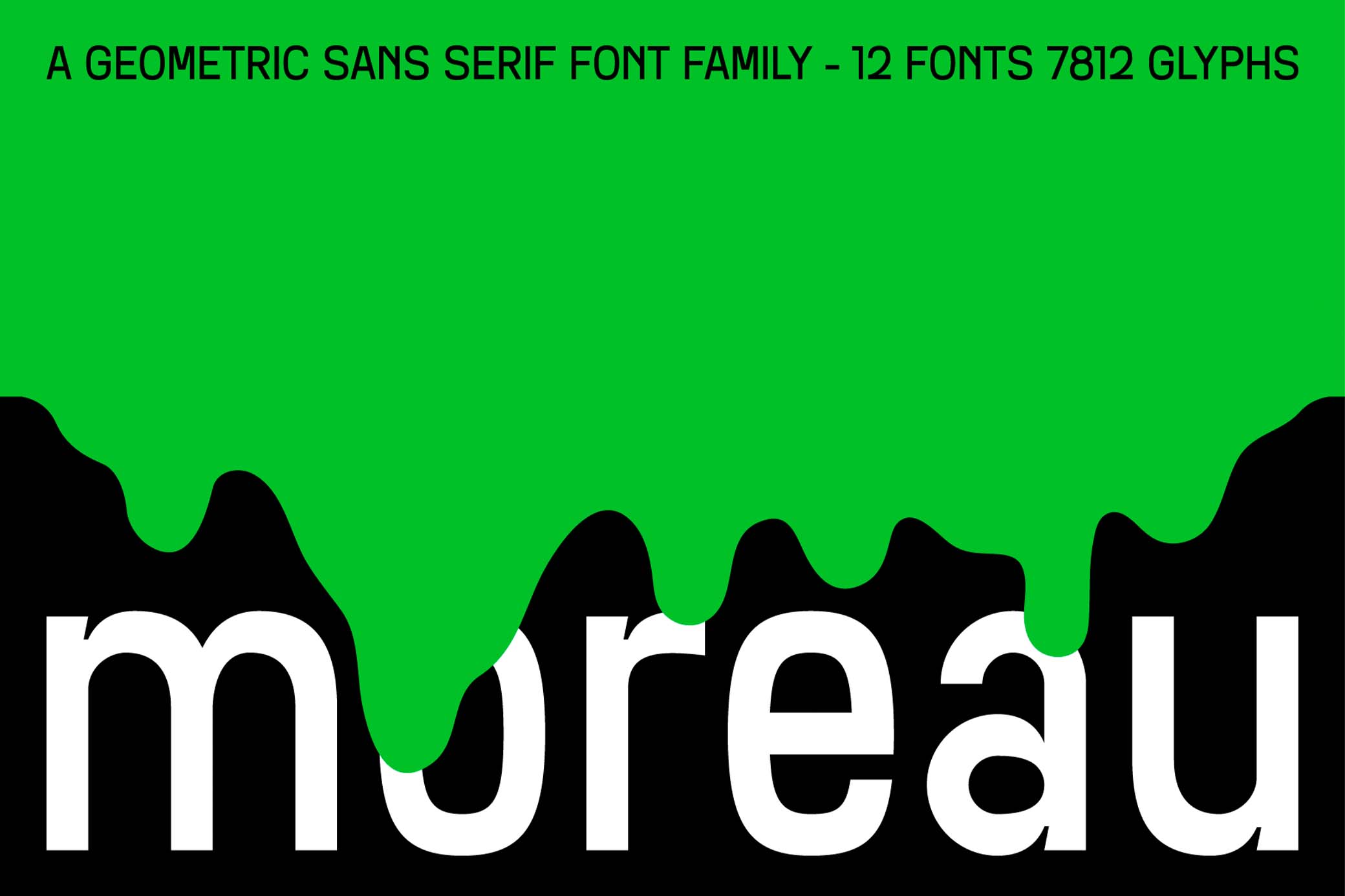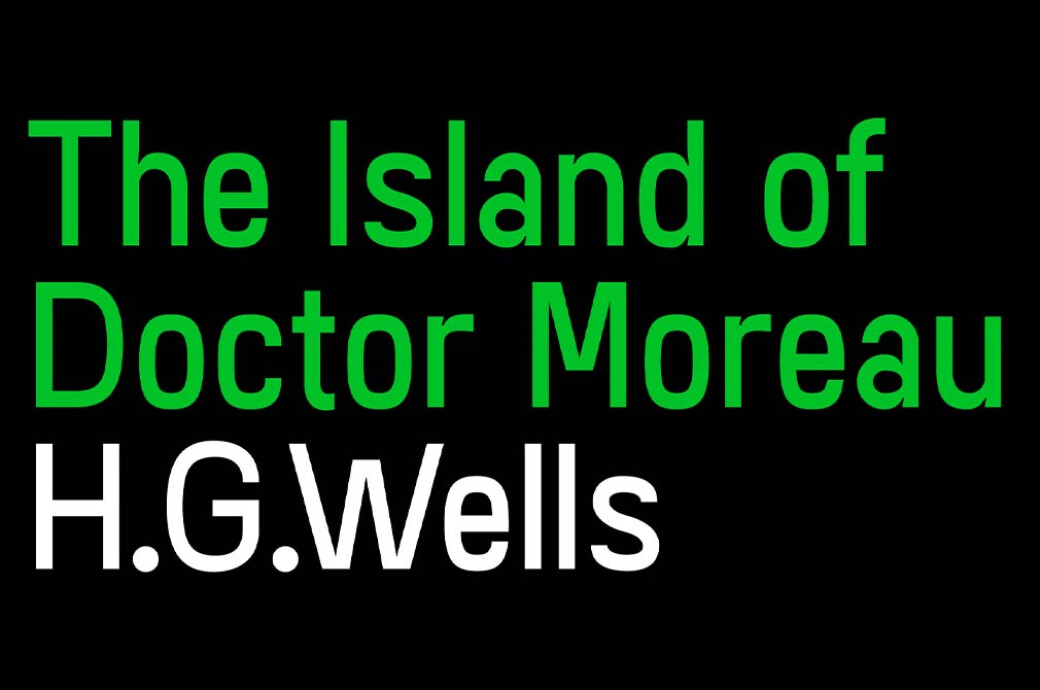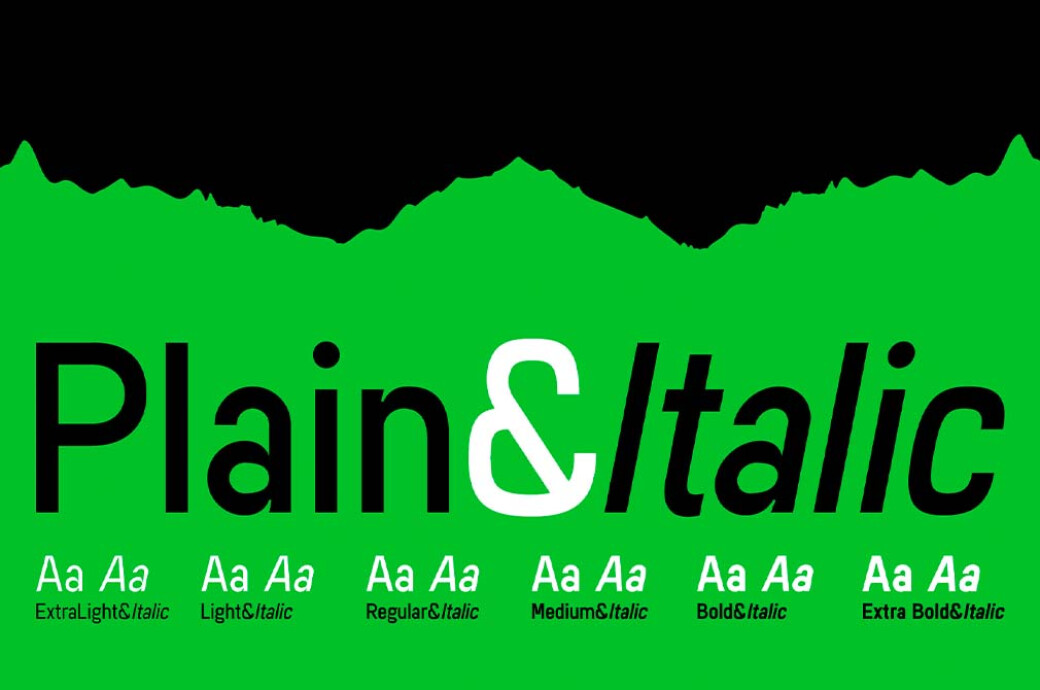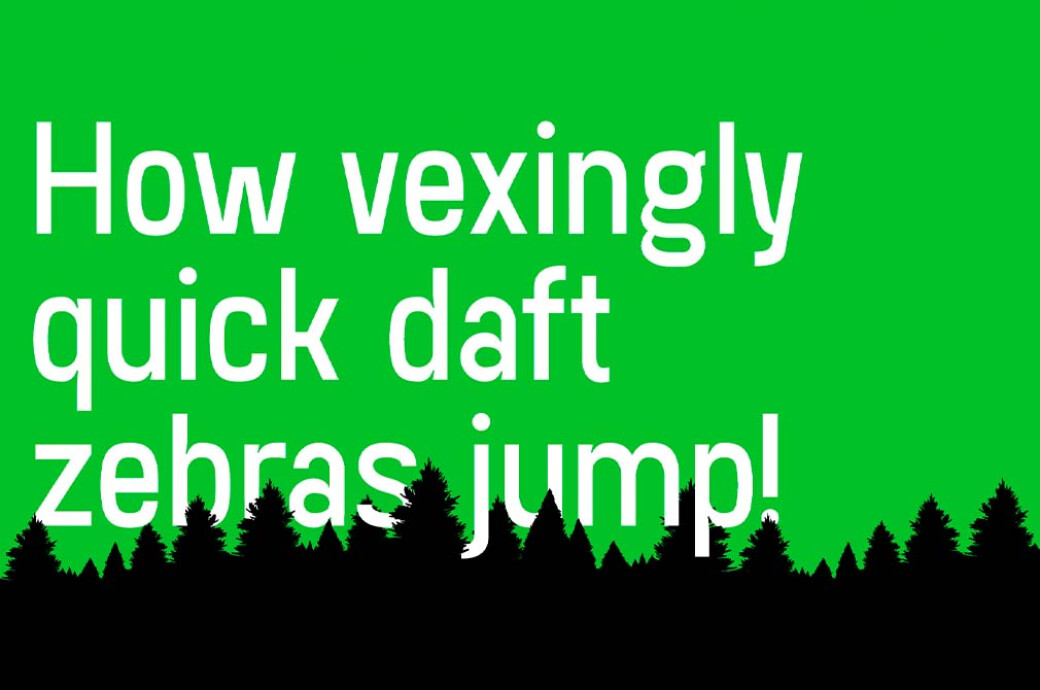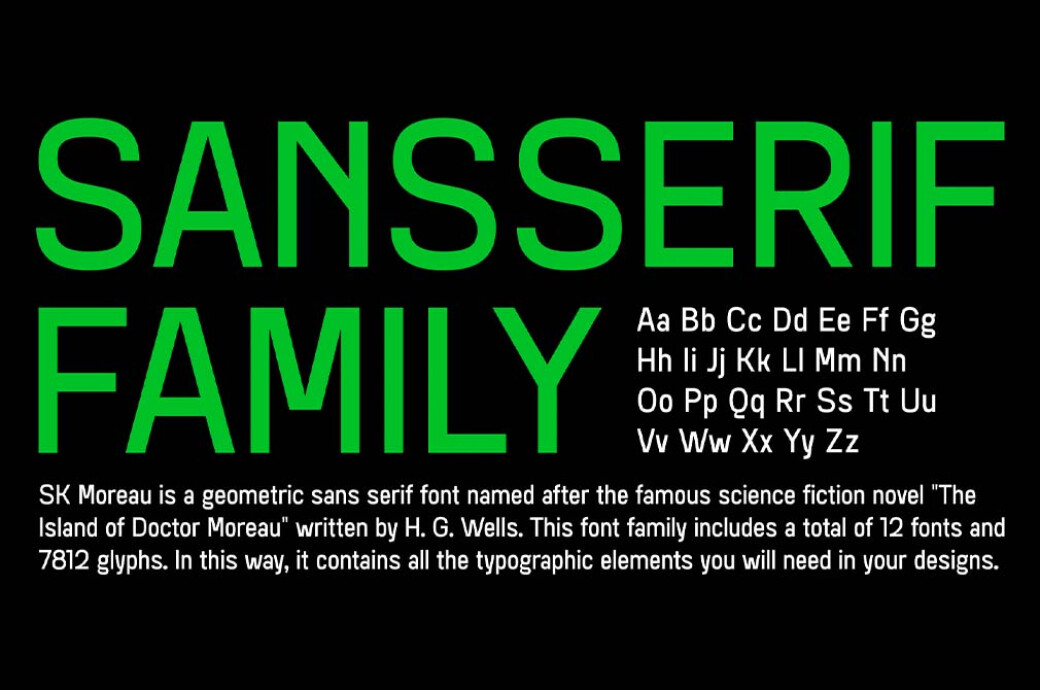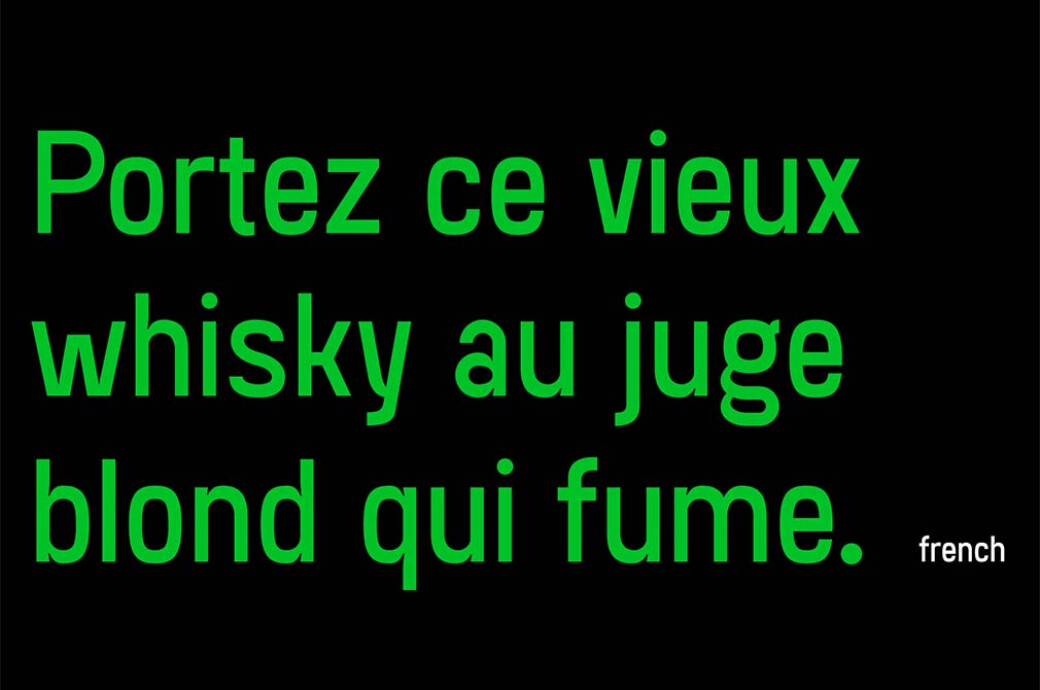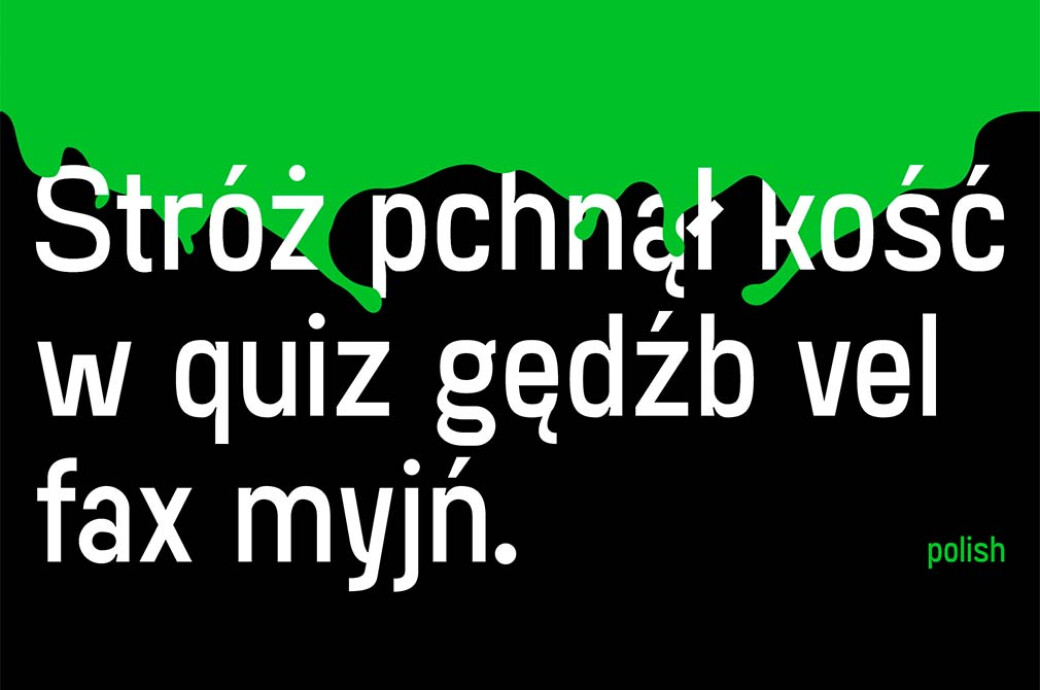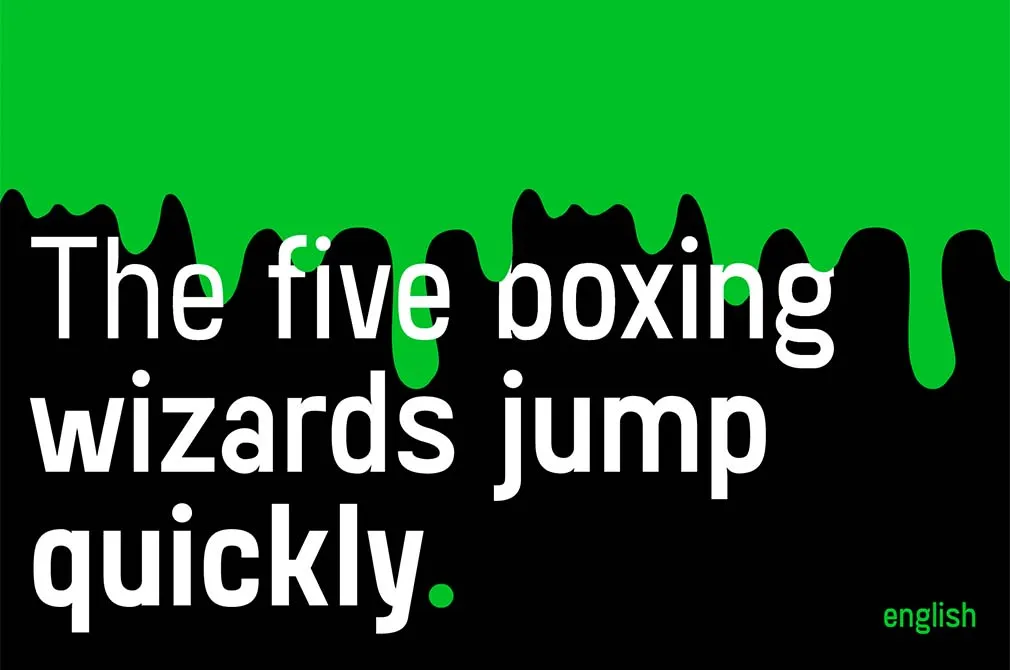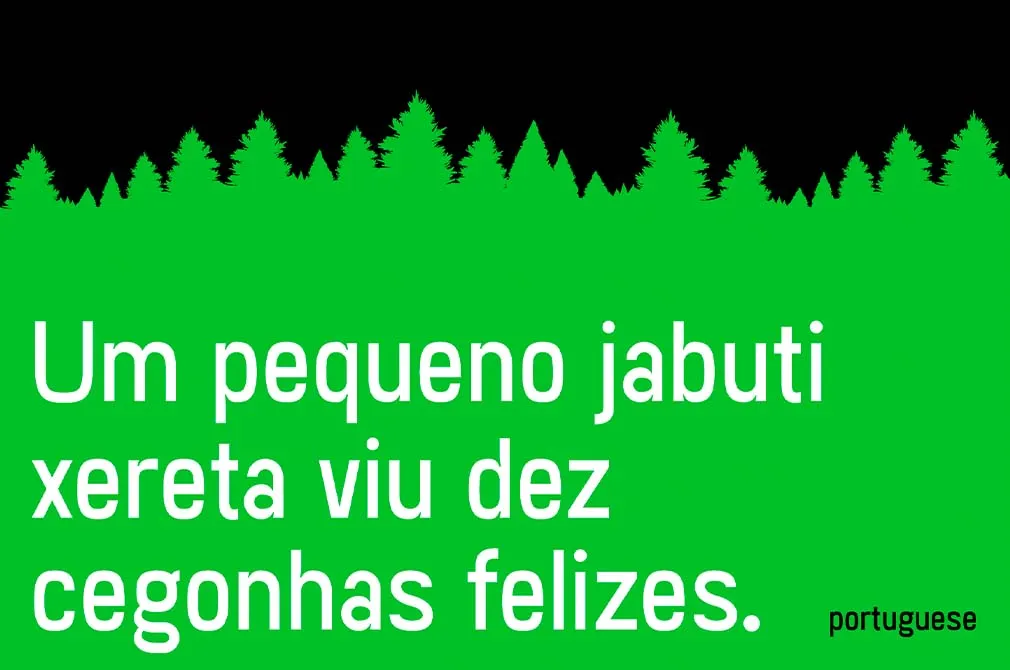
SK Moreau Font Family
Here’s a present for all "The Island of Doctor Moreau” fans and designers who love geometric fonts! Straight lines and perfect forms of this typeface are waiting to decorate your art.
Feeling armed with all the needed tools before getting to work is a euphoric feeling for a designer! That’s why we want to introduce you this font family that provides 12 fonts and 7812 glyphs which allows you to type any text.